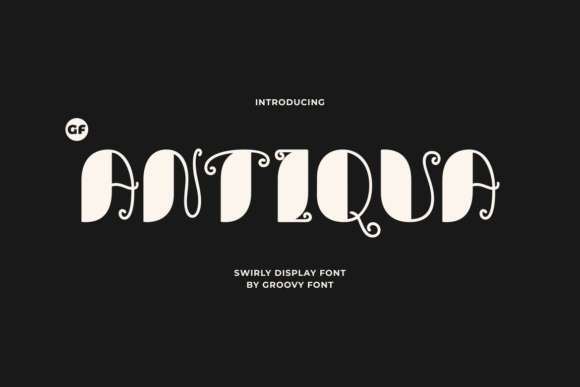
GF Antiqua Font: Elevate Your Designs with Elegant Swirls and Intricate Tails
GF Antiqua, also known as Groovy Antiqua, is a captivating display font that has been making waves in the design world. Its unique blend of elegant swirls and intricate curly tails adds a touch of sophistication and flair to any creative project. Whether you’re looking to craft striking headlines, design eye-catching logos, or create stunning posters, GF Antiqua is the perfect choice to make a statement and grab the attention of your audience.
The Characteristics of GF Antiqua Font
GF Antiqua is a display font that boasts a distinctive and charming appearance. Its elegant swirls and intricate curly tails are the defining features that set it apart from other fonts. The font’s design is inspired by traditional calligraphy and art nouveau styles, with a modern twist to make it more versatile and adaptable to various design applications.
The font’s curly tails and swirls add a dynamic and creative element to any text, making it perfect for designs that require a touch of elegance and sophistication. GF Antiqua is available in various font weights, allowing designers to experiment with different styles and achieve the desired effect.
The Versatility of GF Antiqua Font
GF Antiqua is an incredibly versatile font that can be used in a wide range of design applications. Its elegant and sophisticated appearance makes it perfect for:
- Headlines and Titles: GF Antiqua is ideal for creating striking headlines and titles that grab attention and make a statement.
- Logos and Branding: The font’s unique and memorable appearance makes it perfect for logos and branding materials that require a touch of elegance and sophistication.
- Posters and Flyers: GF Antiqua is a great choice for posters and flyers that require a bold and eye-catching font to grab attention.
- Packaging and Product Design: The font’s elegant appearance makes it perfect for packaging and product design applications where a touch of sophistication is required.
Why Choose GF Antiqua Font?
There are many reasons why GF Antiqua is a popular choice among designers. Here are a few:
- Unique and Memorable: GF Antiqua’s elegant swirls and intricate curly tails make it a unique and memorable font that stands out from the crowd.
- Elegant and Sophisticated: The font’s elegant appearance makes it perfect for designs that require a touch of sophistication and refinement.
- Versatile: GF Antiqua is a versatile font that can be used in a wide range of design applications.
- Easy to Read: Despite its ornate appearance, GF Antiqua is easy to read and understand, making it perfect for designs that require a clear and concise message.
Tips for Using GF Antiqua Font
Here are a few tips for using GF Antiqua effectively in your designs:
- Use it Sparingly: GF Antiqua is a bold and eye-catching font, so use it sparingly to avoid overwhelming your design.
- Pair it with a Simple Font: Pair GF Antiqua with a simple font to create contrast and make your design more readable.
- Experiment with Different Weights: Experiment with different font weights to achieve the desired effect and add depth to your design.
- Pay Attention to Kerning: Pay attention to kerning to ensure that your text is evenly spaced and easy to read.
GF Antiqua Font in Digital Design
GF Antiqua is not only perfect for print design, but also for digital design applications. Its elegant and sophisticated appearance makes it perfect for:
- Website Headers and Titles: GF Antiqua is ideal for creating striking website headers and titles that grab attention and make a statement.
- Social Media Graphics: The font’s unique and memorable appearance makes it perfect for social media graphics that require a touch of elegance and sophistication.
- Digital Posters and Flyers: GF Antiqua is a great choice for digital posters and flyers that require a bold and eye-catching font to grab attention.
GF Antiqua is a charming display font that is sure to elevate your designs with its elegant swirls and intricate curly tails. Its versatility, unique appearance, and ease of use make it a popular choice among designers. Whether you’re looking to create striking headlines, design eye-catching logos, or craft stunning posters, GF Antiqua is the perfect choice to make a statement and grab the attention of your audience.
- What is GF Antiqua font? GF Antiqua is a charming display font characterized by elegant swirls and intricate curly tails.
- What is GF Antiqua font used for? GF Antiqua is perfect for headlines, logos, posters, and any other creative endeavor that requires a touch of elegance and sophistication.
- Is GF Antiqua font easy to read? Despite its ornate appearance, GF Antiqua is easy to read and understand, making it perfect for designs that require a clear and concise message.